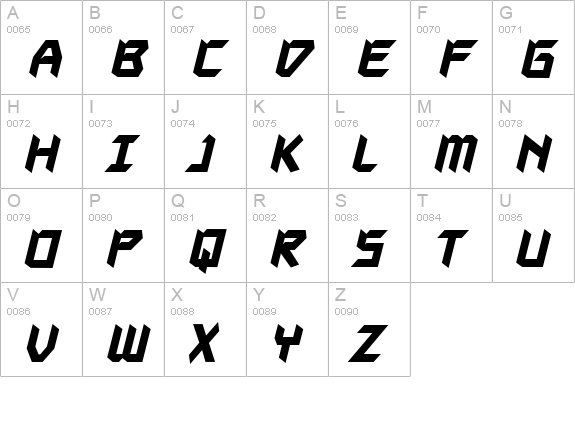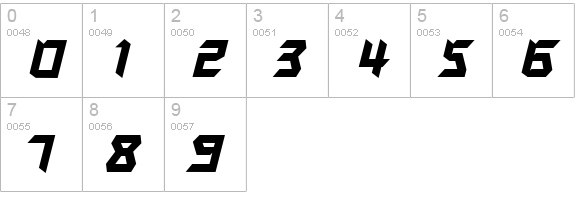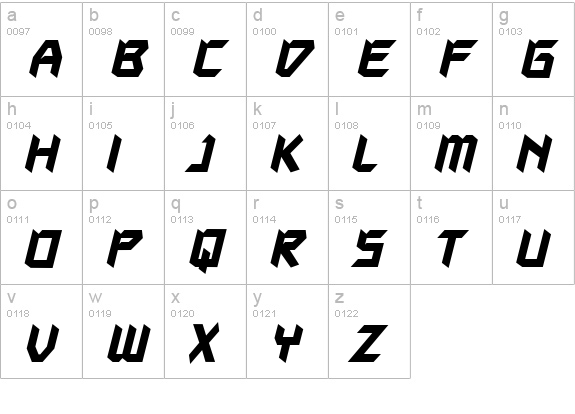
Autodestruct BB Bold Font Details
Autodestruct BB Bold is a strong, high-contrast variant in the Autodestruct typeface family \xE2\x80\x94 well suited to headlines, attention-grabbing titles, and strong calls-to-action.
Autodestruct BB Bold font is a striking and dynamic typeface that exudes power and modernity. Its bold letterforms and sharp edges make a bold statement, perfect for grabbing attention and commanding presence in any design project. This unique font is ideal for headlines, posters, logos, and any other design where you want to make a strong impression. What makes Autodestruct BB Bold font even more appealing is that it is available for free download at FontsMarket.com. This means you can easily access this eye-catching font and incorporate it into your designs without any cost. Don't miss out on the opportunity to add Autodestruct BB Bold font to your font collection and elevate your design projects with its bold and impactful aesthetic.